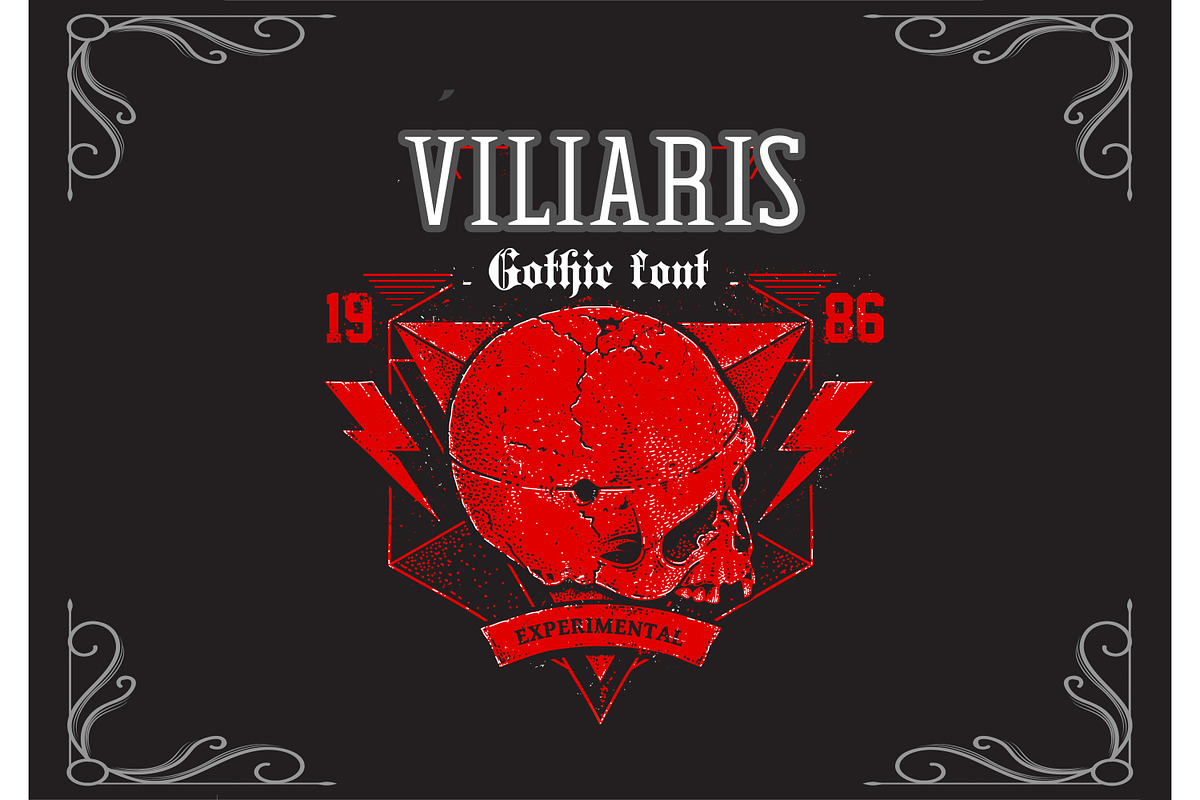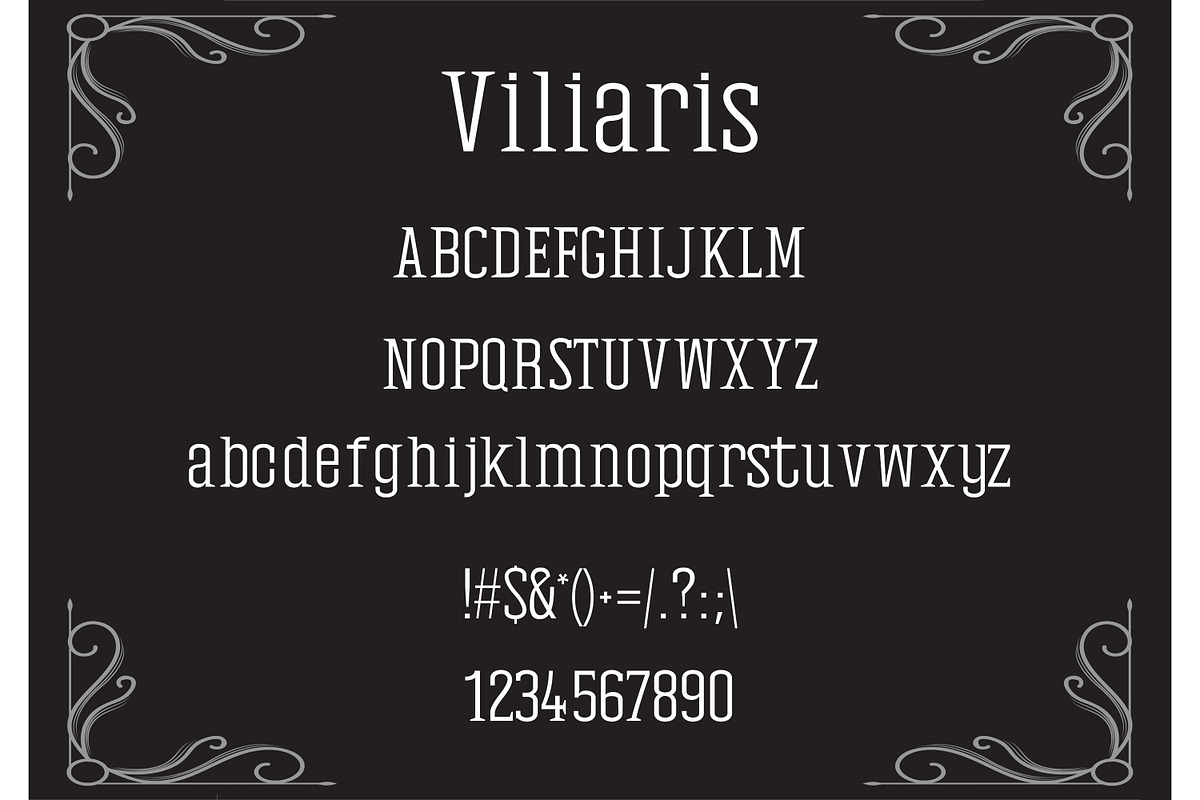
Viliaris Gothic Font
Viliaris Gothic Font by DmDesignsStoreArt is a font selected for branding, posters, packaging, typography.
Why Viliaris Gothic Font is worth a look
Viliaris Gothic Font by DmDesignsStoreArt fits naturally into Branding, posters, packaging, typography.